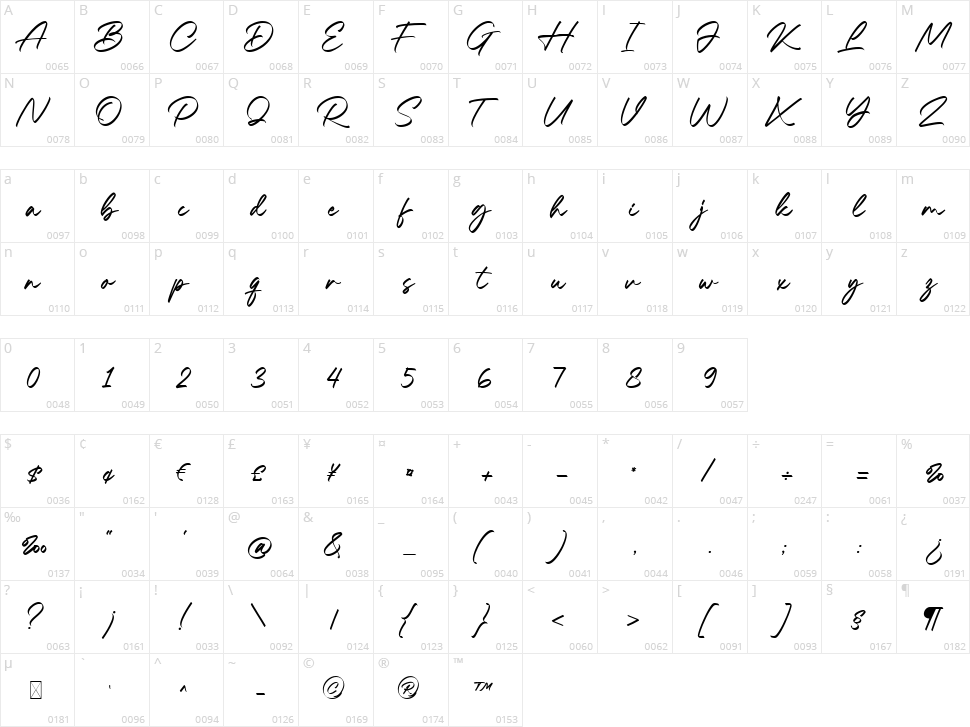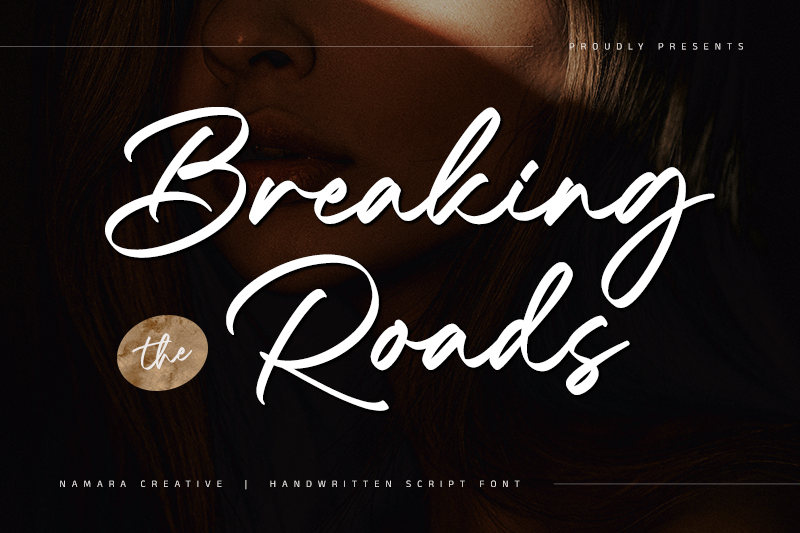
Breaking Road
Breaking Road is a Modern handwritten script font with casual and organic look, thick uneven strokes that vary in width.
Perfect for wedding invitations, greeting cards, and posters to add a sense of informality and warmth.